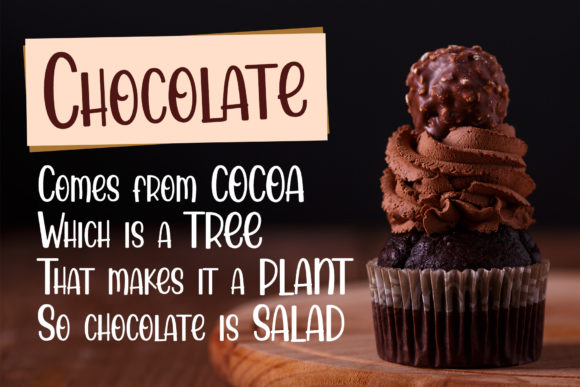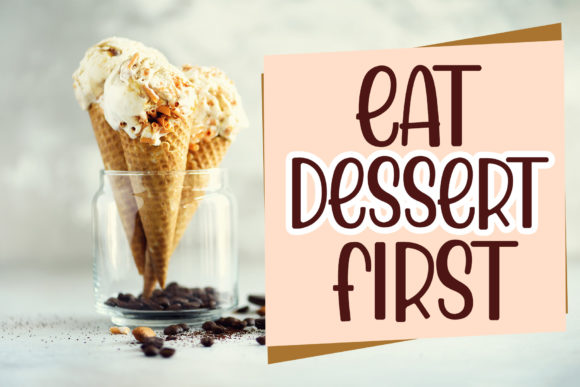
Almond Caramel Font
db-ku.com - Script & Handwritten -- Almond Caramel is a sweet and relaxed handwritten style font. Get inspired by its friendly charm!